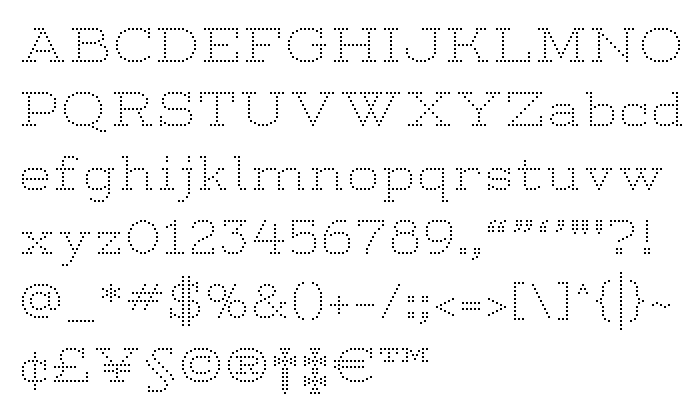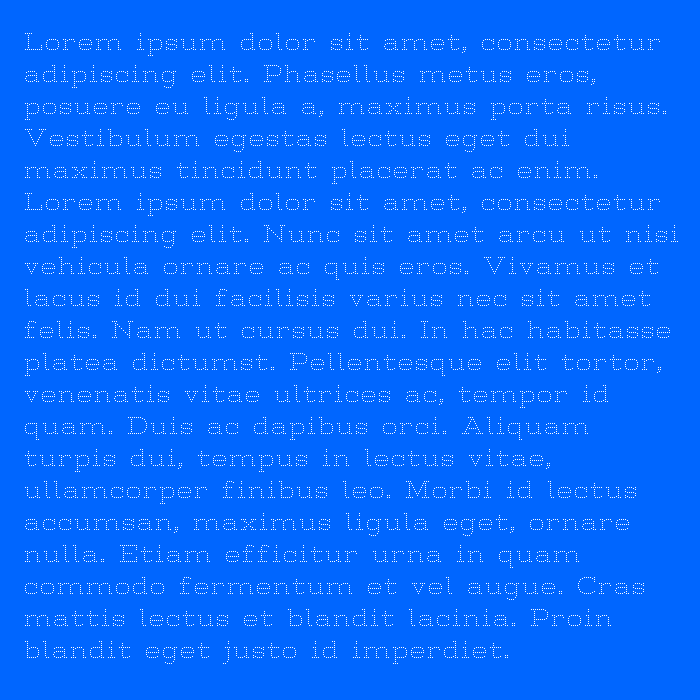
• Abruzzo: a mountainous region in Italy. DS: dotted serif
I think I found the right proportions for these types of letters. I left the extended Latin set for later; I just want to consider these letters for a while and make them perfect.
Always thought that these types of fonts were really nice.
Beautiful work @Frodo7, the proportions look very good indeed.
I love fonts like this, especially this one, looks and reads amazing on pixel zoom. The designs of "§" and "$" are also great.